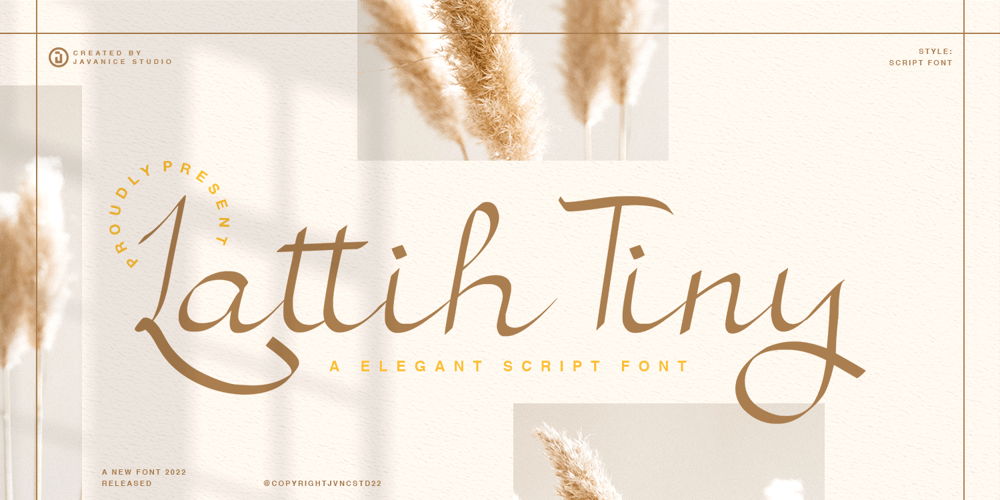
Lattih Tiny
Lattih Tiny font
Lattih Tiny Font Family was designed by Revsani Hisyam Wardhana and published by Javanice Studio. Lattih Tiny contains 1 styles and family package options. Introducing Lattih Tinyby Javanice StudioLattih Tiny is A Handwritten Script FontLattih Tiny is perfect for branding project, apparel, labels, magazines, books, greeting / wedding cards, packaging, fashion, make up, stationery, and any type of advertising purpose or just used to express words above the background.This font includes Lattih Tiny also multilingual support.Enjoy the font, feel free to comment or feedback, send me PM or email.